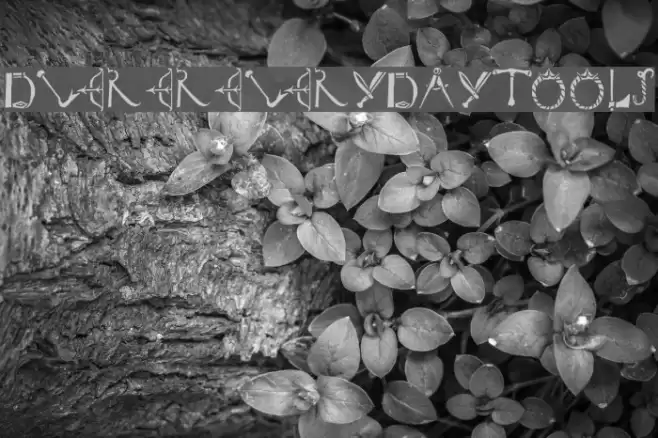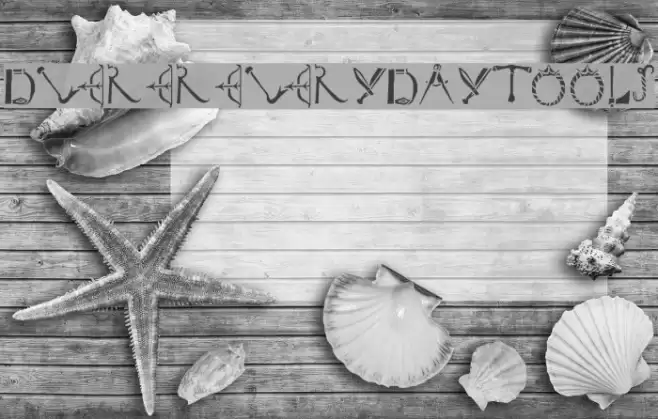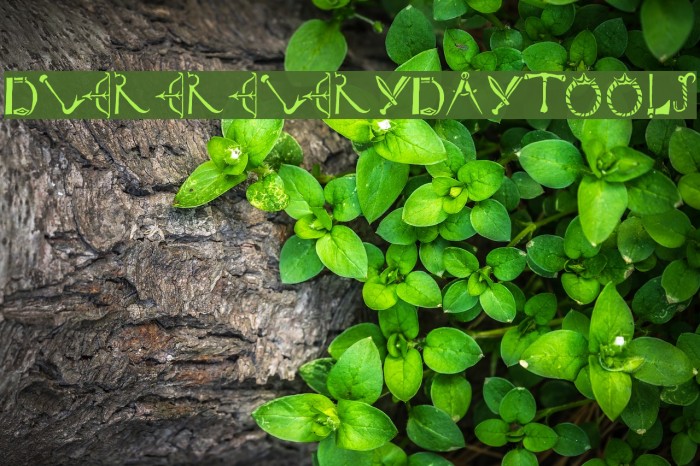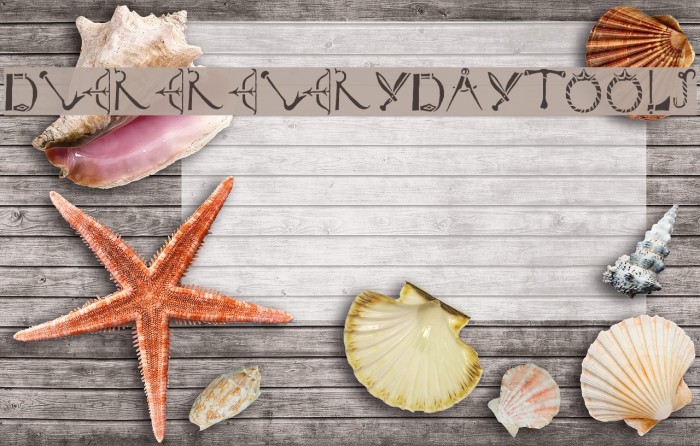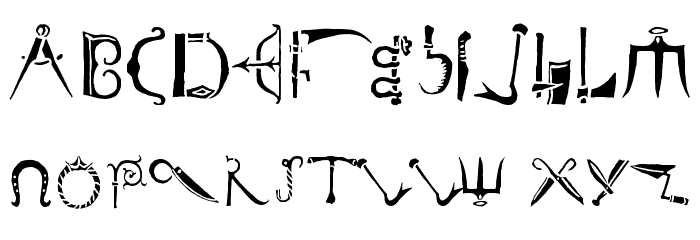
DuererEverydayTools Font
DuererEverydayTools Description
This font is a highly decorative and artistic typeface that incorporates elements of everyday tools into its design. Each letter is uniquely crafted to resemble various tools, creating a playful and imaginative appearance. The uppercase letters are particularly elaborate, with intricate details that mimic the shapes and forms of tools like hammers, wrenches, and pliers. The lowercase letters maintain this theme but with slightly less complexity, ensuring readability while still retaining the overall aesthetic. The numbers are represented as bold, rectangular shapes, providing a stark contrast to the detailed letters. This font is perfect for creative projects that require a touch of whimsy and innovation.
A decorative font inspired by everyday tools, featuring intricate and playful designs from Decorative fonts.